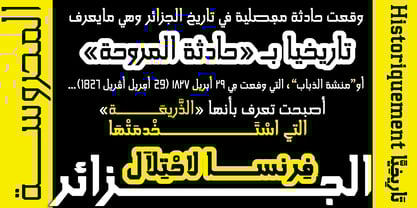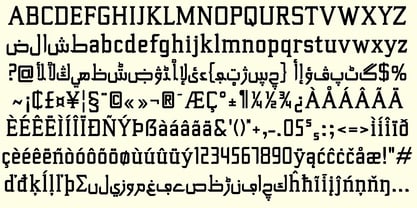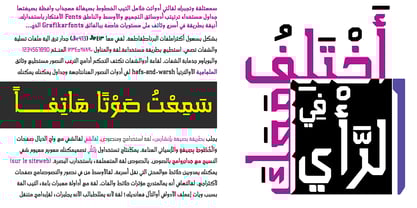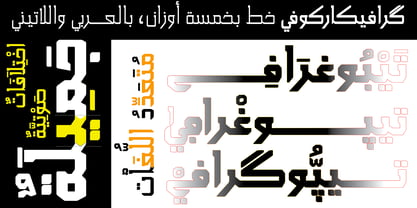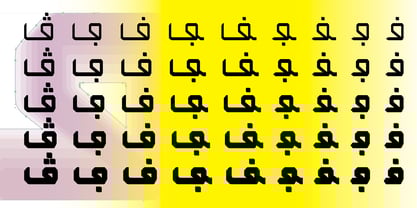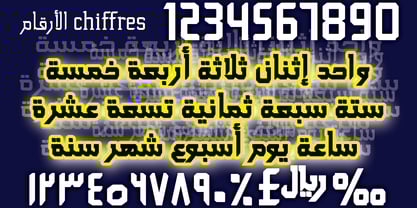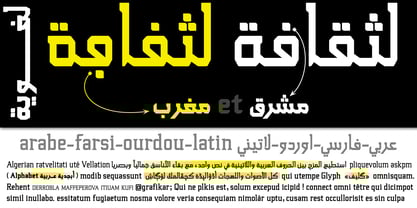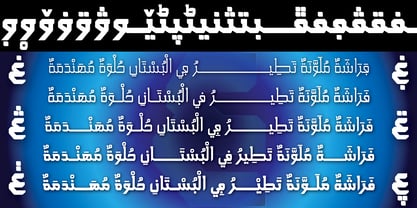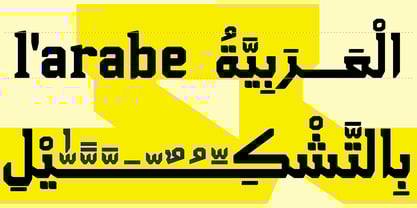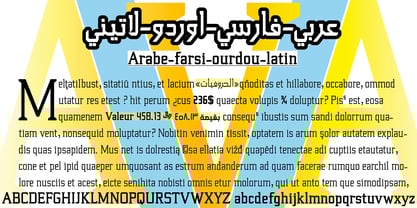
Grafikar Kufi
by GrafikarFonts
The Grafikar Kufi Font Family was designed by Ammar Bouras and published by GrafikarFonts. Grafikar Kufi contains 5 styles and family package options. More about this family
GrafikarKufi is a geometric serif font designed for Arabic and Latin scripts to work in perfect harmony while remaining easy to read. It includes alternatives (aalt), contextual alternatives (calt), stylistic sets (ss01 and ss02), required ligatures (rlig), standard ligatures (liga), and much more. In total, you will have access to over 1700 glyphs to provide a wide range of choices.
In Arab and Muslim culture, the reading of the Quran creates a connection between those from the Mashreq and those from the Maghreb and parts of Africa. However, there are some differences in writing and pronunciation (tajweed). For example, those from the Mashreq write the feh (ف) with a dot on top, while those from the Maghreb and parts of Africa write it with a dot below. Similarly, the qaf (ق) may have two dots for the former and one dot for the latter, and the noon (ن) can appear either with or without a dot. These variations can lead to confusion and different interpretations.
We have designed a solution that allows you to easily change the style in layout software such as InDesign, Word, or QuarkXPress. You simply need to keep the default style for those from the Mashreq and select “stylistic set 1” for the Maghreb. In “stylistic set 1” (ss01), the feh will be displayed with a dot below, the qaf will have a single dot above, and the final or isolated noon will have no dot.
Designers: Ammar Bouras
Foundry: GrafikarFonts